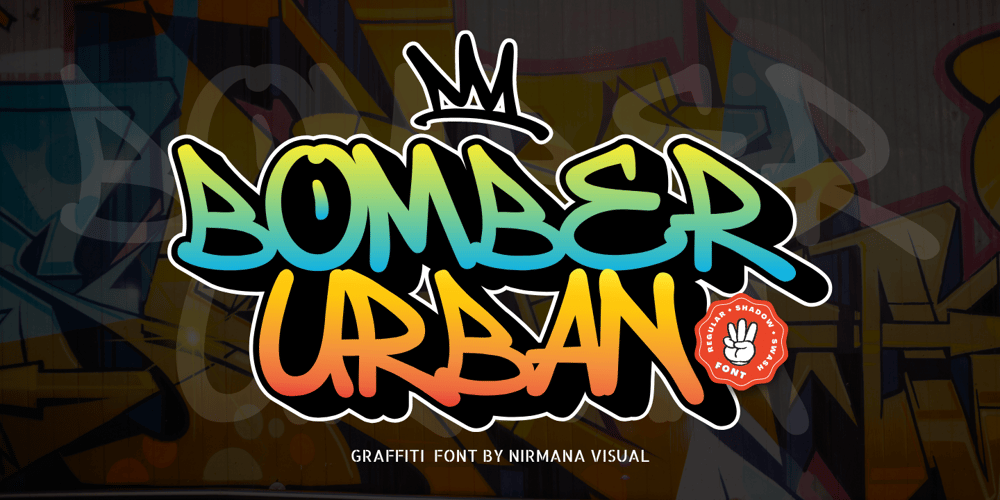
Bomber Urban
Bomber Urban font
Bomber Urban Font Family was designed by Sigit Dwipa and published by Nirmana Visual. Bomber Urban contains 3 styles and family package options. Bomber Urban Inspired by Graffiti Street Art,Bomber Urban is a fun, urban-style display font. This font is suitable for designs like logos, advertising, apparel, jerseys, sportswear, skateboard designs, and more. Take your concepts to the next level with this stunning font!Make your designs stand out with the urban and edgy look of our Graffiti font.